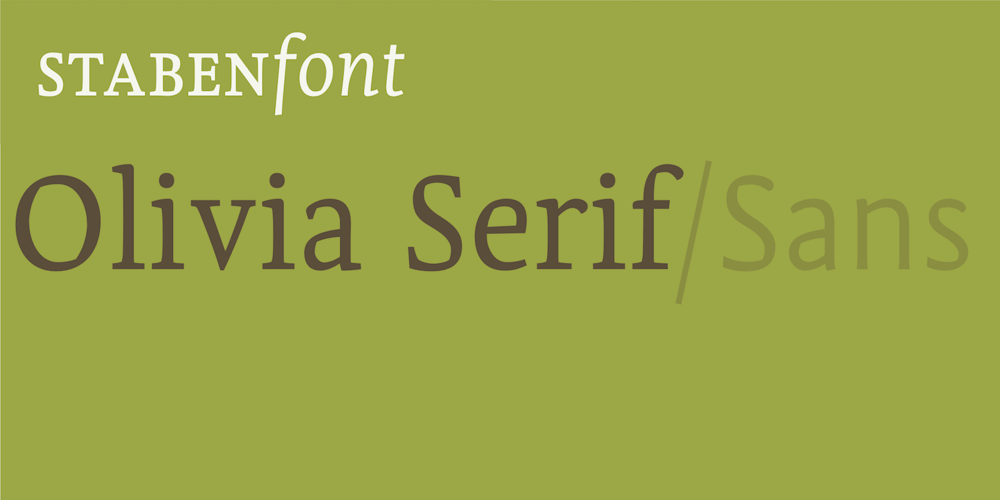
Olivia Serif Font Family was designed by Johannes Steil and published by Stabenfonts. Olivia Serif contains 7 styles and family package options. The rounded Serif with edges. Olivia Serif got curves on the outlines and edges on the inlines. So it can be very legible and space efficient at the same time: the curves keep the distinctions between the letters, the corners keep the influences from broadnibbed pens with a subtle horizontal stress for great legibility. Olivia has personality without being obtrusive. Three weights (light, regular, bold) are equipped with real italics, SmallCaps, different sets of figures, accents for almost every latin script, arrows, symbols. A fourth weight (black) comes without italics or SmallCaps, but all the other features. Olivia: with or without.